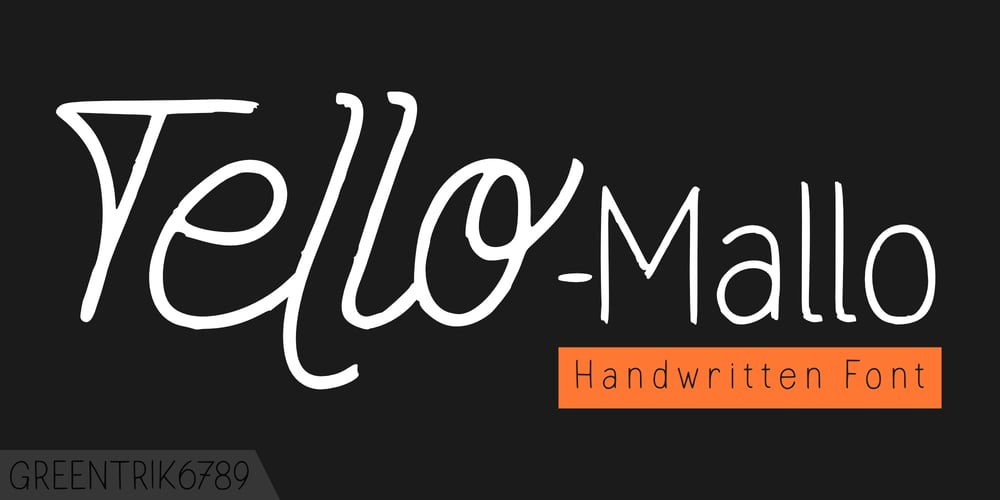
Tello Mallo
Tello Mallo font
Tello Mallo Font Family was designed by Tri Kuncoro and published by Greentrik6789. Tello Mallo contains 2 styles and family package options. Just write, I just want to write, I took a pen, I write the words with punctuation, I write the numbers, symbols and some currencies.No matter about My writing is ugly or very ugly, but sharing this handwriting to the world is my best wish.Tello Mallo comes in regular and italic style for every word you type. Do you like it?Hope you enjoy this, if you have problems or questions, please don’t hesitate to contact me. Thank you and have a nice day 🙂 😉